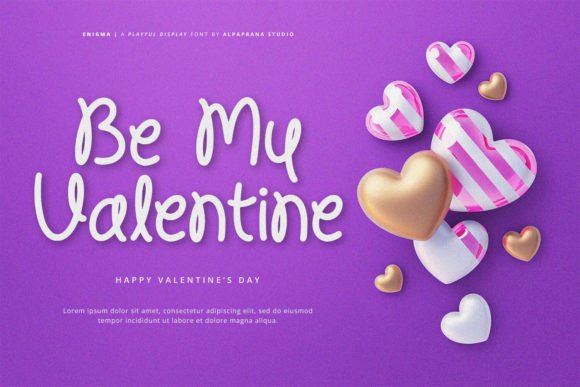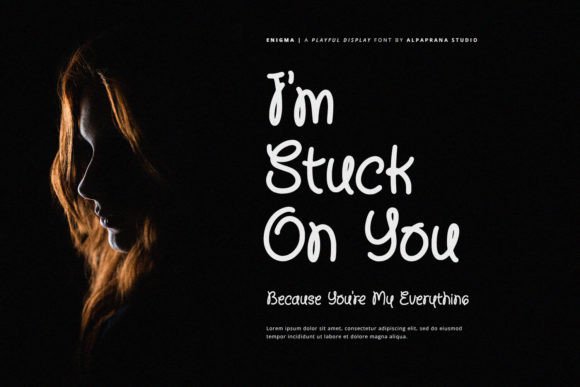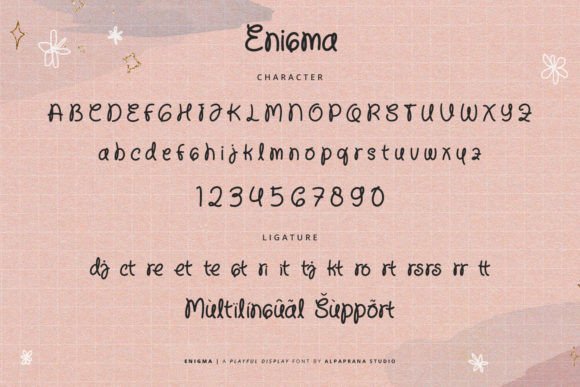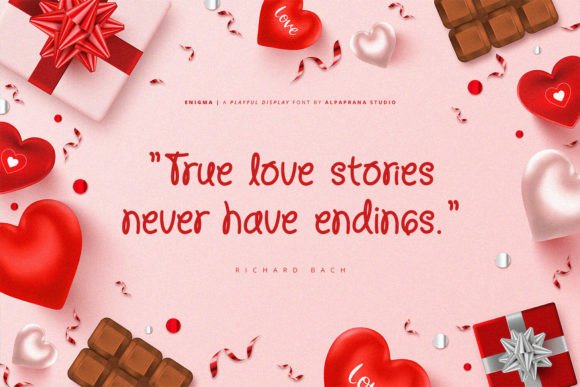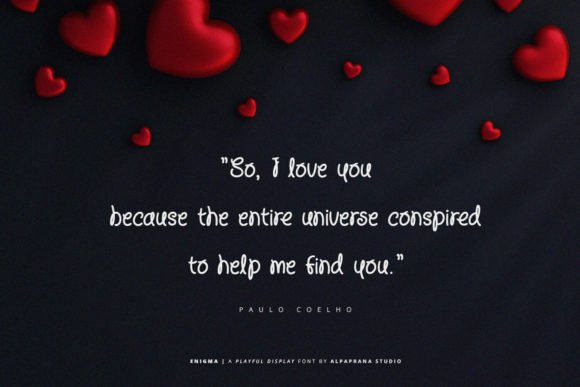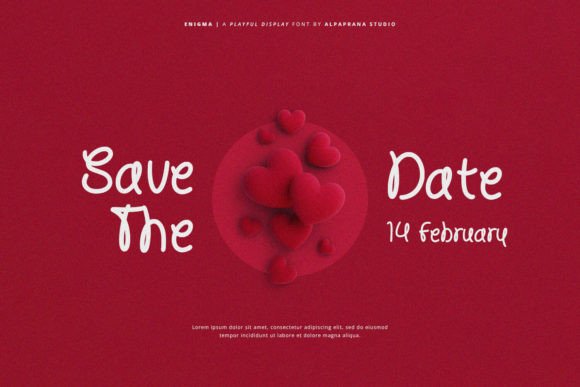
Unveiling the Enigma Font: A Perfect Blend of Romance and Modernity
In the world of typography, fonts play a crucial role in conveying the tone and aesthetic of a design project. For designers and crafters seeking a font that exudes both romantic and modern feels, the Enigma Font is an excellent choice. This stunning display font is perfect for a wide range of applications, including magazines, packaging, posters, shopping bags, t-shirts, book covers, photography, special events, and other design projects.
The Enigma Font: A Harmonious Balance of Style and Elegance
The Enigma Font boasts a unique and captivating design, skillfully blending romantic and modern elements to create a distinctive visual identity. Its elegant and refined appearance makes it an ideal choice for designers looking to add a touch of sophistication to their projects. The font’s modern feel ensures that it remains fresh and relevant, while its romantic undertones evoke a sense of nostalgia and whimsy.
Key Features of the Enigma Font
- Display Font: The Enigma Font is specifically designed as a display font, making it perfect for headlines, titles, and other prominent text elements in design projects.
- Romantic and Modern Feels: The font’s unique design strikes a perfect balance between romantic and modern styles, allowing designers to create visually appealing and engaging content.
- Versatility: The Enigma Font can be used across a wide range of applications, from print materials like magazines, posters, and book covers to digital projects and merchandise such as t-shirts and shopping bags.
- Elegance and Sophistication: The font’s elegant design makes it an excellent choice for projects that require a touch of refinement and luxury.
Applications of the Enigma Font
The Enigma Font’s versatility makes it suitable for various design projects, including:
- Magazines and Editorials: Add a touch of elegance to your magazine or editorial design with the Enigma Font, perfect for headlines, titles, and pull quotes.
- Packaging Design: Elevate your packaging design with the Enigma Font, ideal for product labels, packaging materials, and branding elements.
- Posters and Flyers: Create eye-catching posters and flyers with the Enigma Font, perfect for promoting events, products, or services.
- Merchandise: Use the Enigma Font to create stunning merchandise, such as t-shirts, shopping bags, and other promotional items.
- Book Covers: Add a touch of sophistication to your book covers with the Enigma Font, perfect for fiction, non-fiction, and poetry books.
- Photography: Use the Enigma Font to create beautiful and elegant photo titles, captions, and quotes.
- Special Events: Make your special events, such as weddings, galas, or conferences, more memorable with the Enigma Font, perfect for invitations, programs, and signage.
The Enigma Font is a stunning display font that offers a perfect blend of romance and modernity, making it an excellent choice for designers and crafters. Its versatility, elegance, and sophistication make it suitable for a wide range of design projects, from print materials to digital projects and merchandise. By incorporating the Enigma Font into your design projects, you can add a touch of refinement and luxury, elevating your designs to the next level.